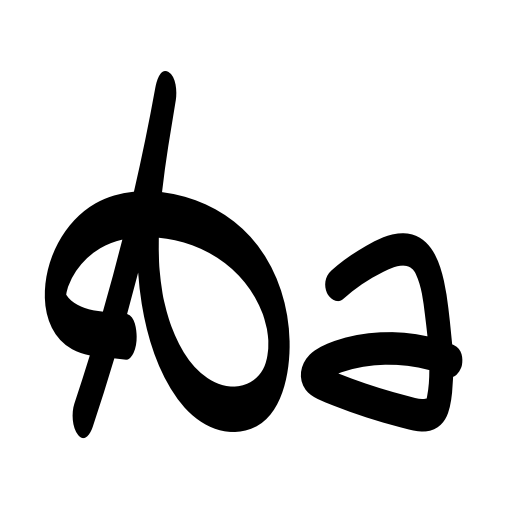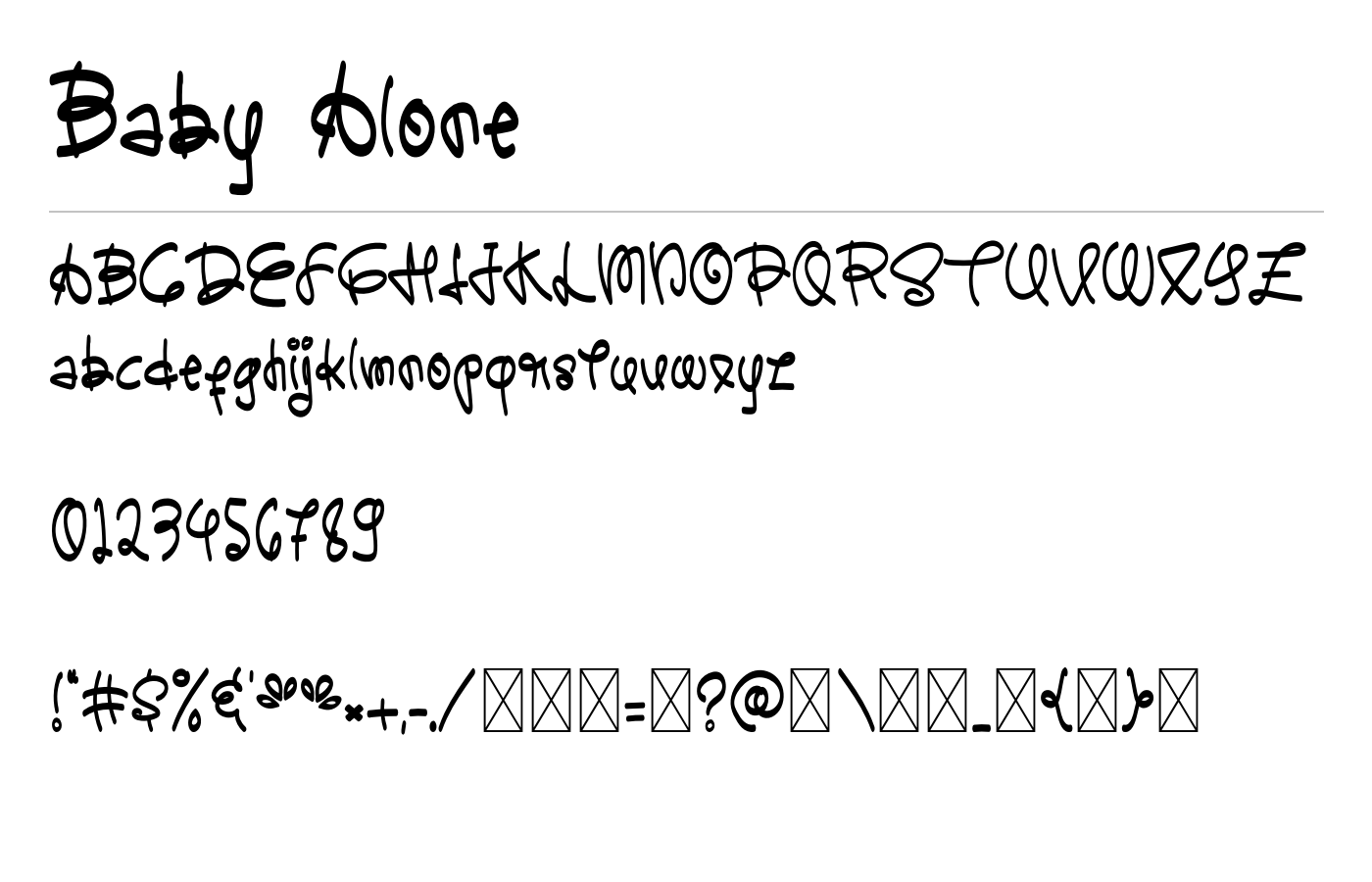
Baby Alone is a playful, handwritten sans serif font with an irregular, whimsical style that mimics casual, childlike doodling. Its uneven strokes, quirky letter shapes, and lively character give it a fun and approachable personality, making it ideal for creative, informal designs such as children's products, playful branding, or lighthearted posters. This font works best in display use where its unique charm can shine and add a personal, friendly touch.
Baby Alone Font
About Baby Alone Font